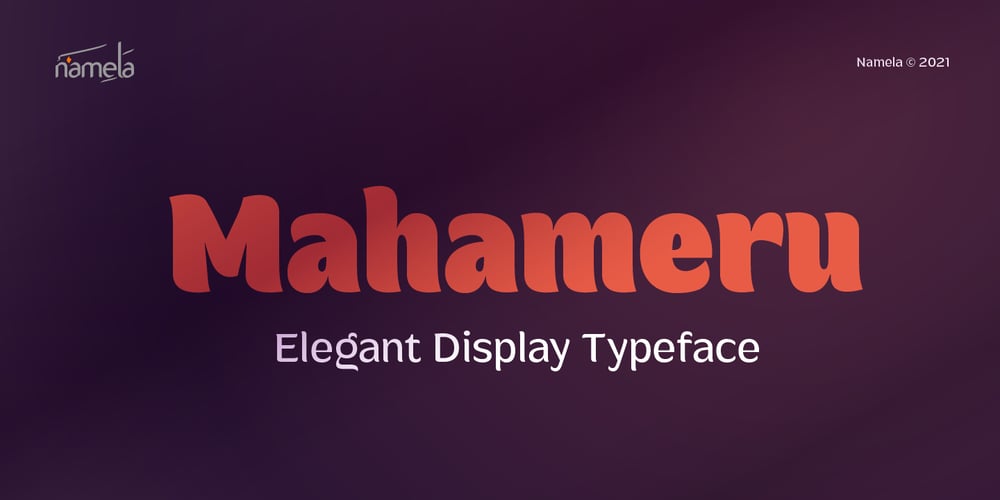
Mahameru
Mahameru font
Mahameru Font Family was designed by Nur Syamsi, Bustanul Arifin and published by NamelaType. Mahameru contains 15 styles and family package options. Mahameru is the name of the peak of Mount Semeru, mean “The Great Mountain” in Sanskrit.This font gives a firm and soft character, with the terminal point on straight and curved strokes.The family has 9 weights ranging from Thin to Black and offers a lot of features flexibility that will help you find the best typographic color for your project.